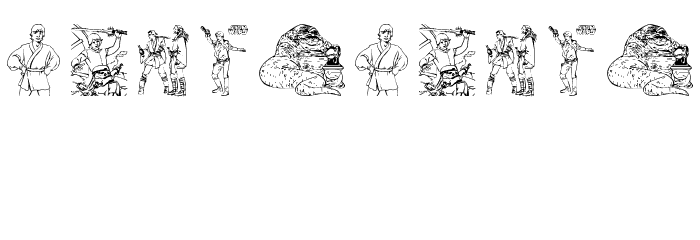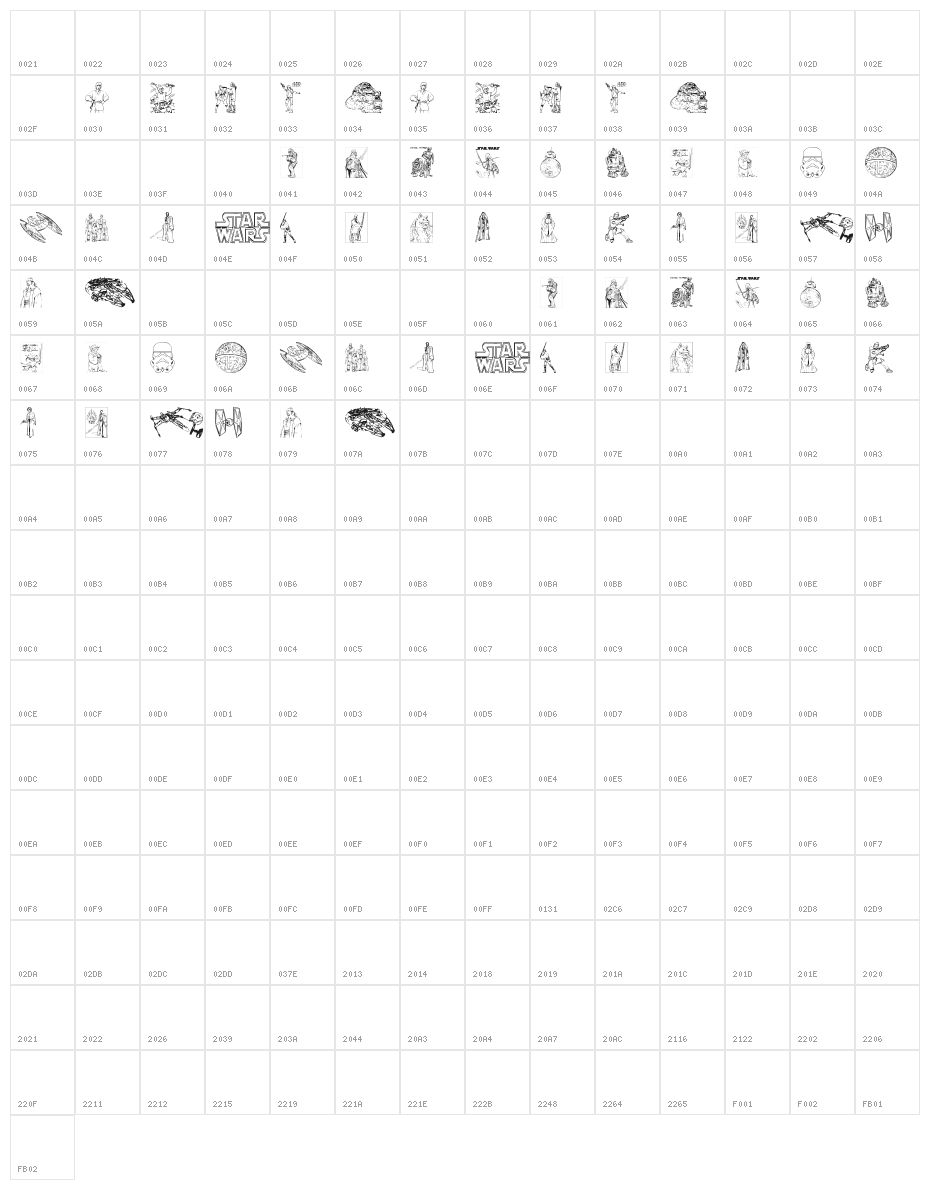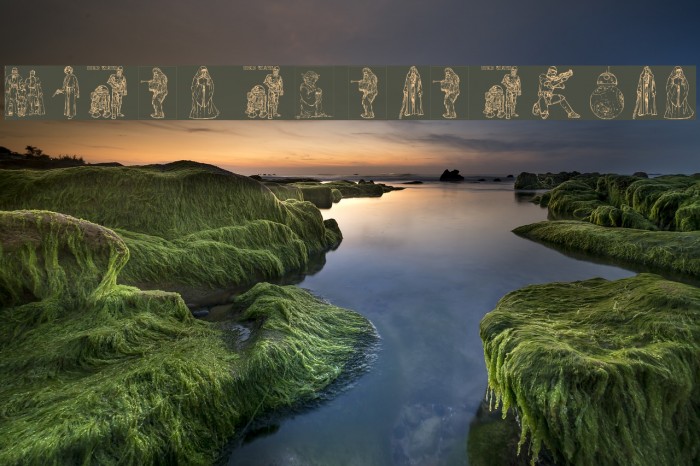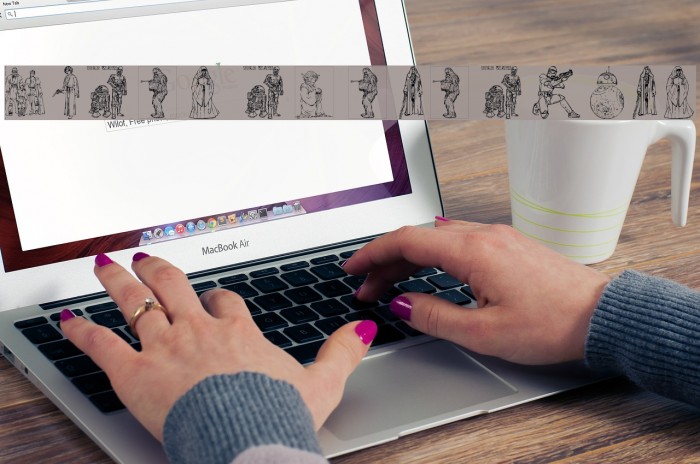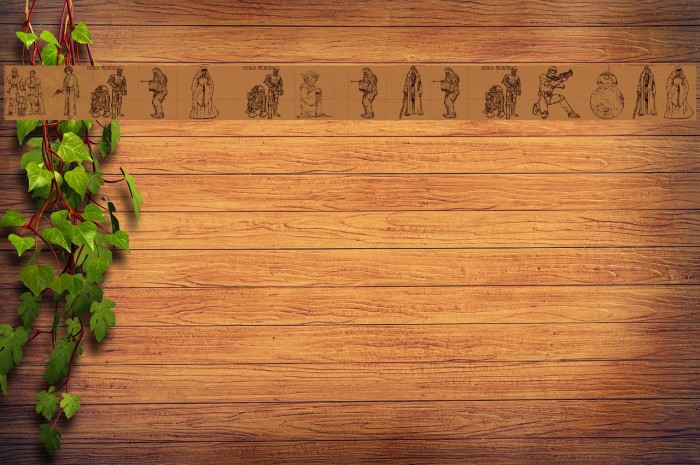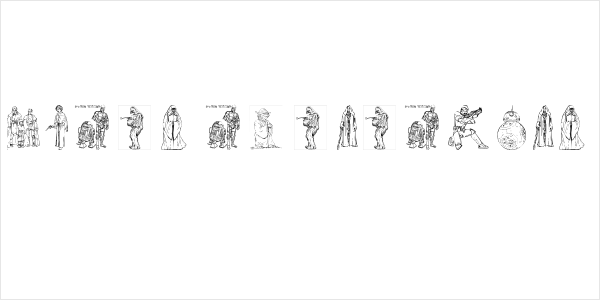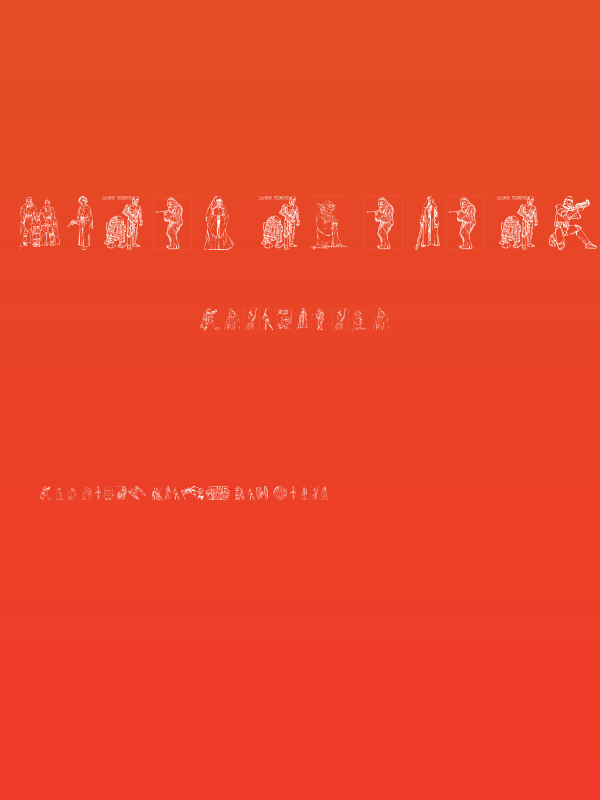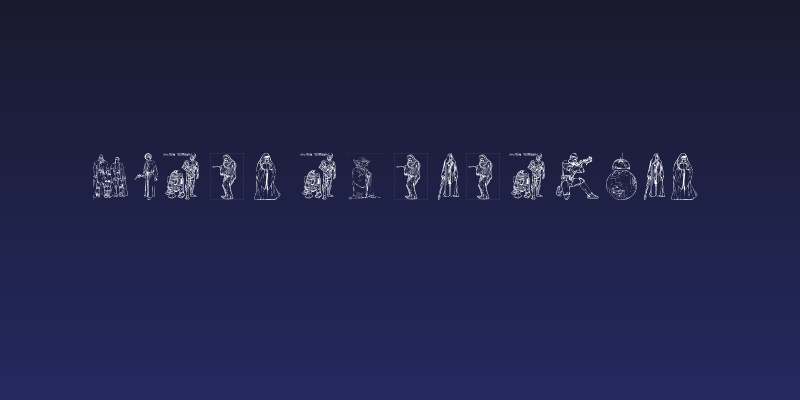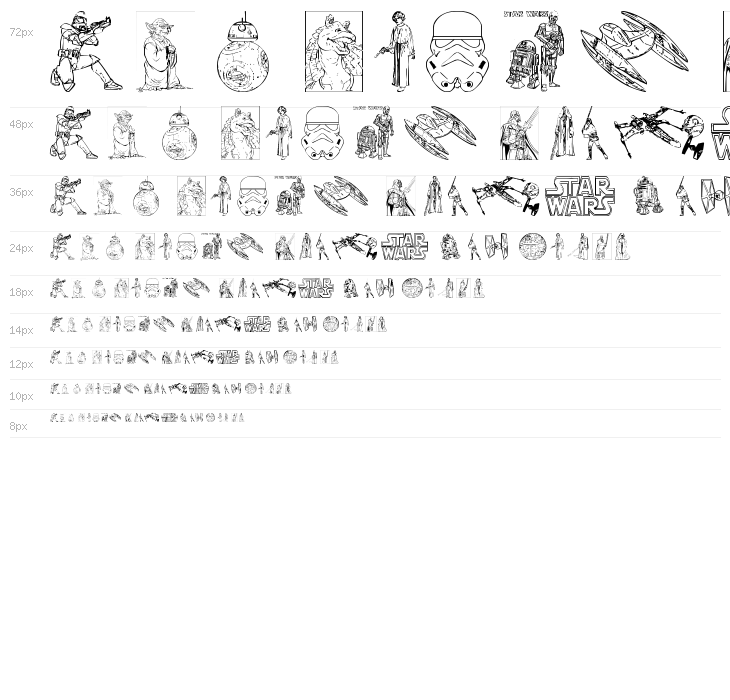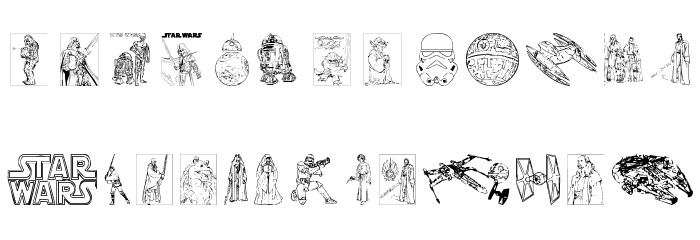
Lucas characters Font
Lucas characters Description
A highly decorative and illustrative font featuring detailed line art of iconic characters, vehicles, and logos from the Star Wars franchise, with each glyph representing a different scene or figure rather than traditional letterforms.
| Overall Style | Decorative, Thematic, Illustrative |
| Use Case | Logos, Posters, Decorative headings, Themed graphics |
| Proposed Projects | Fan art, themed party invitations, event posters, collectibles, novelty merchandise, and decorative headings. |